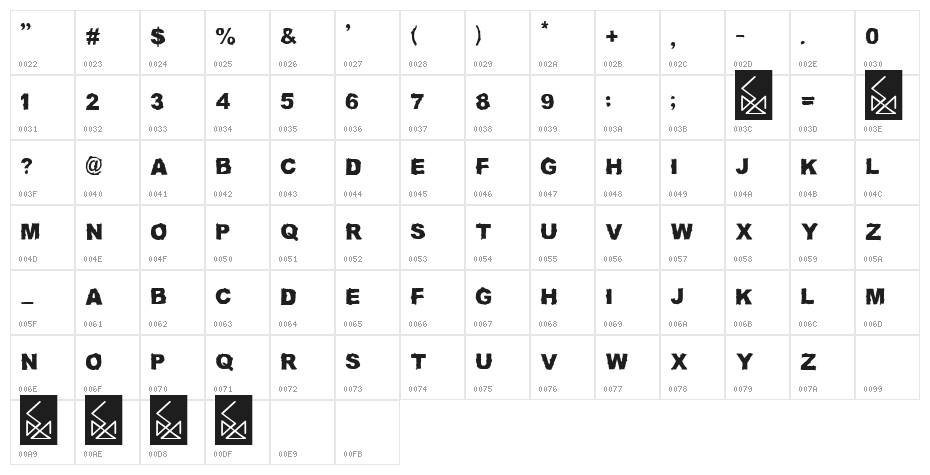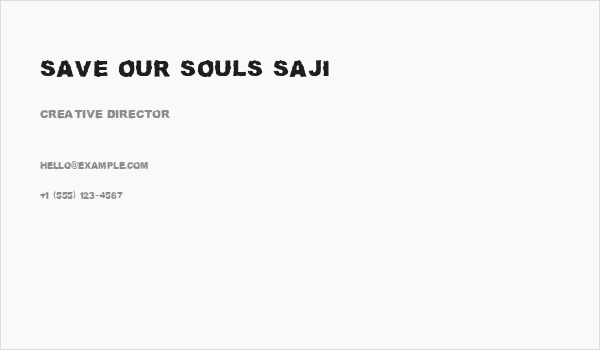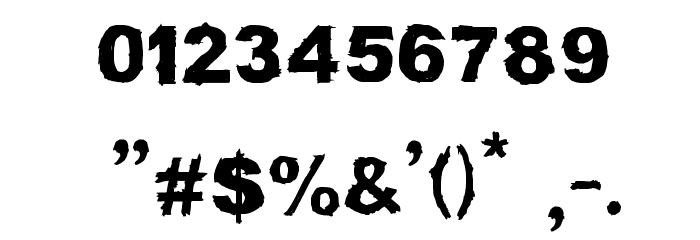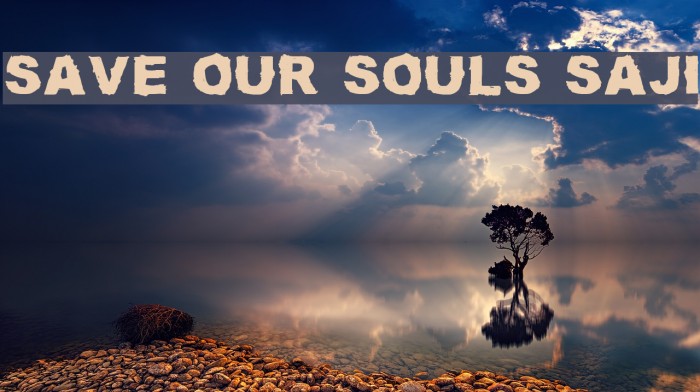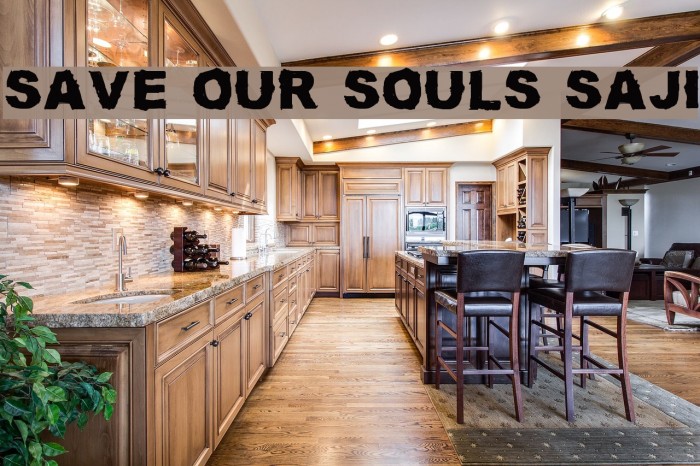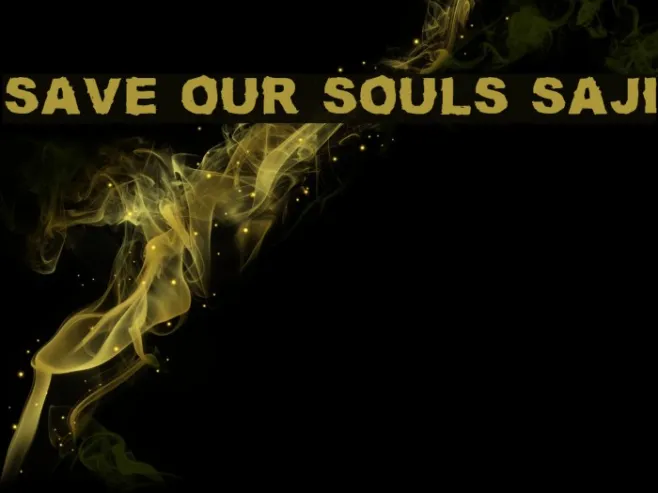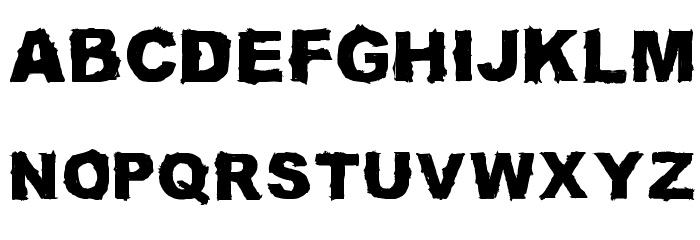
SAVE OUR SOULS saji Font
SAVE OUR SOULS saji Description
This font features a bold and rugged design with a distressed, grunge-like appearance. The characters have uneven edges and a slightly rough texture, giving them a hand-crafted feel. The uppercase and lowercase letters maintain a consistent style, while the numerals and special characters complement the overall aesthetic. This font's unique and edgy look makes it stand out, ideal for projects that require a strong visual impact.